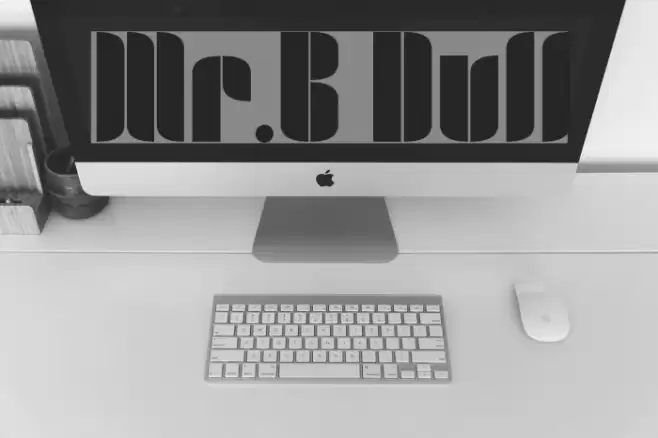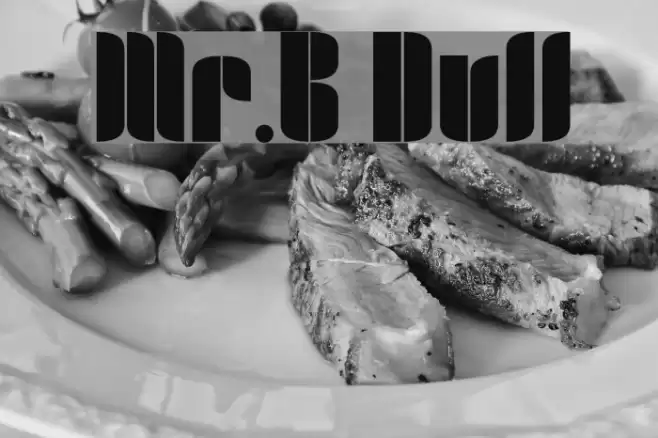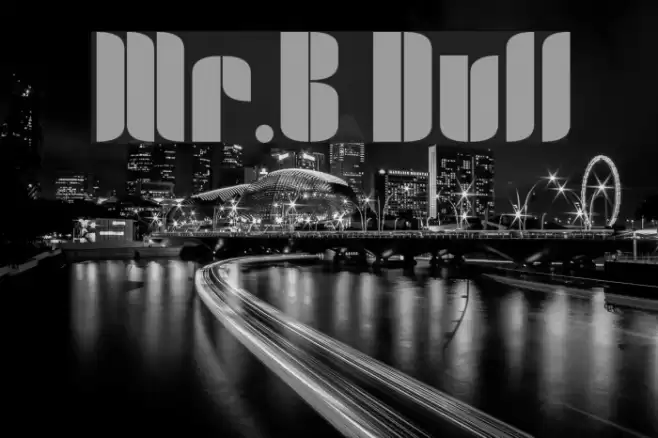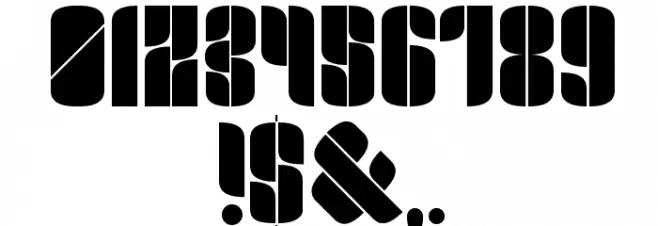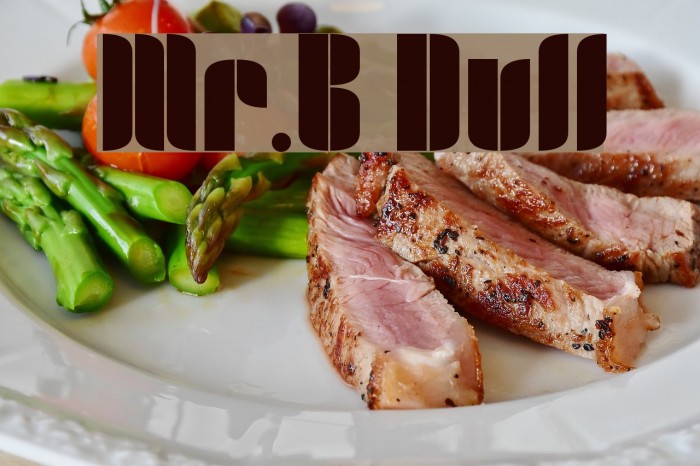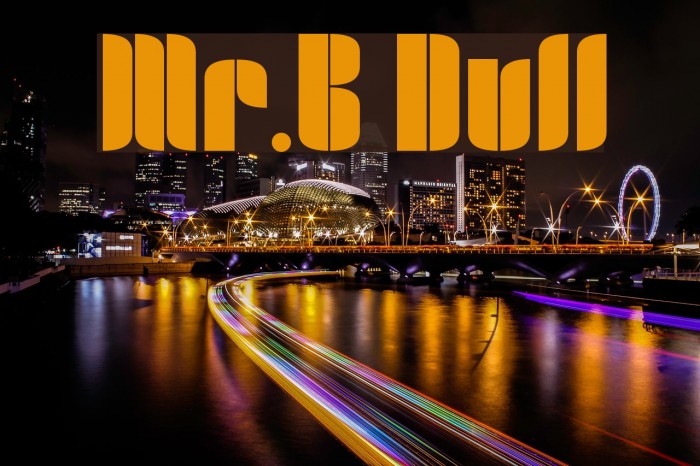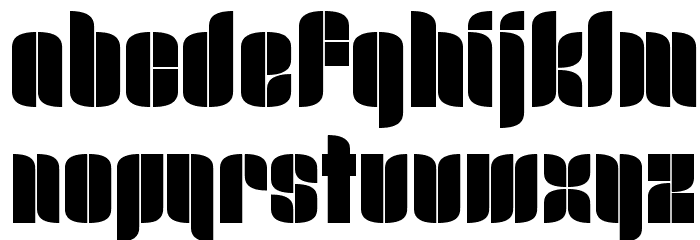
Mr.B Dull Font
Mr.B Dull Description
This font features a bold and geometric design with a distinctively modern and decorative style. Each character is crafted with thick, uniform strokes that create a strong visual impact. The letters are constructed with a unique blend of curves and straight lines, resulting in a highly stylized appearance. The uppercase and lowercase letters maintain a consistent height, contributing to a cohesive look. The numbers and special characters follow the same design principles, ensuring uniformity across all glyphs. This font's boldness and geometric nature make it ideal for attention-grabbing designs.
A bold, geometric font with a modern and decorative style from Uncategorized fonts.
- Proposed Projects: Ideal for posters, logos, branding, and headlines where a strong visual impact is desired.